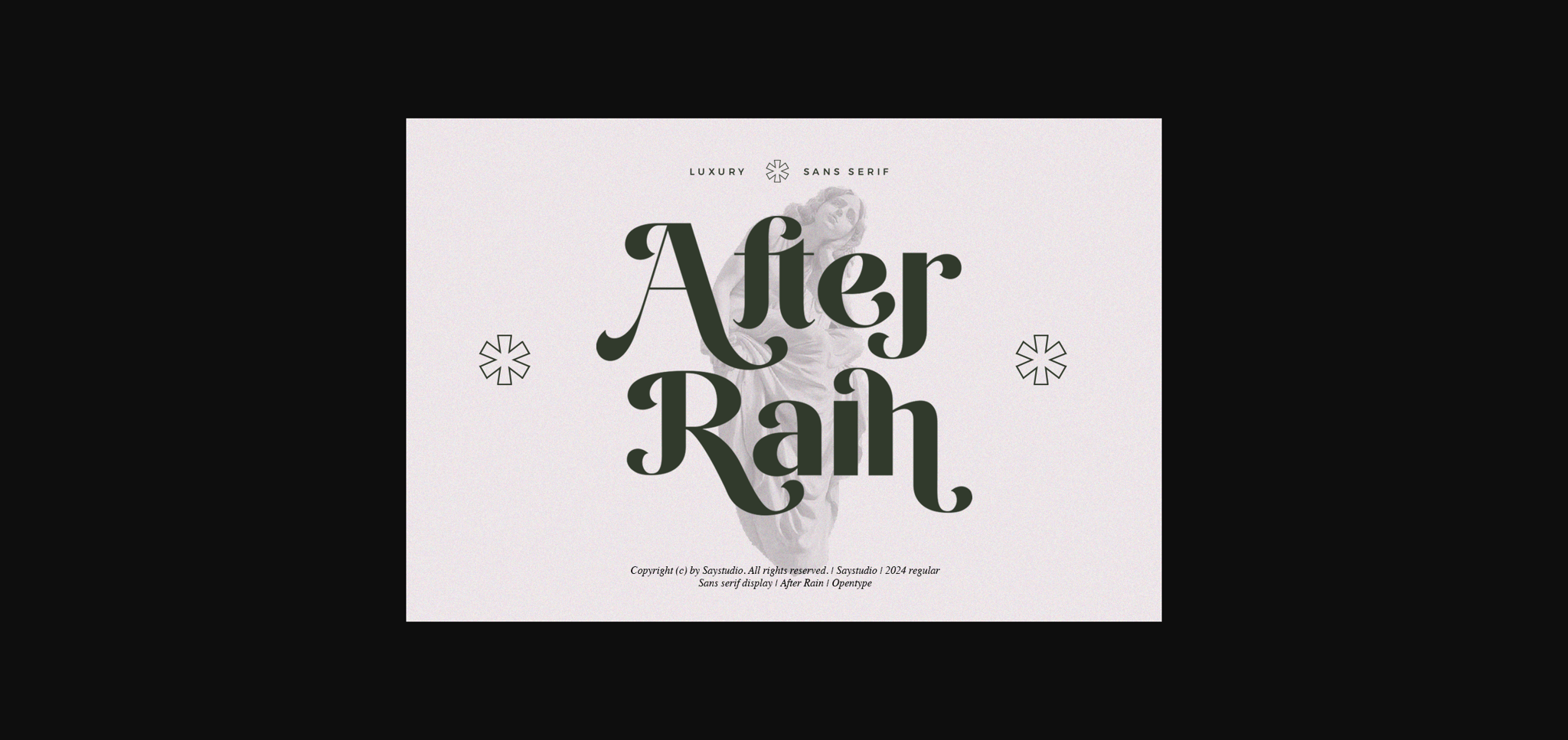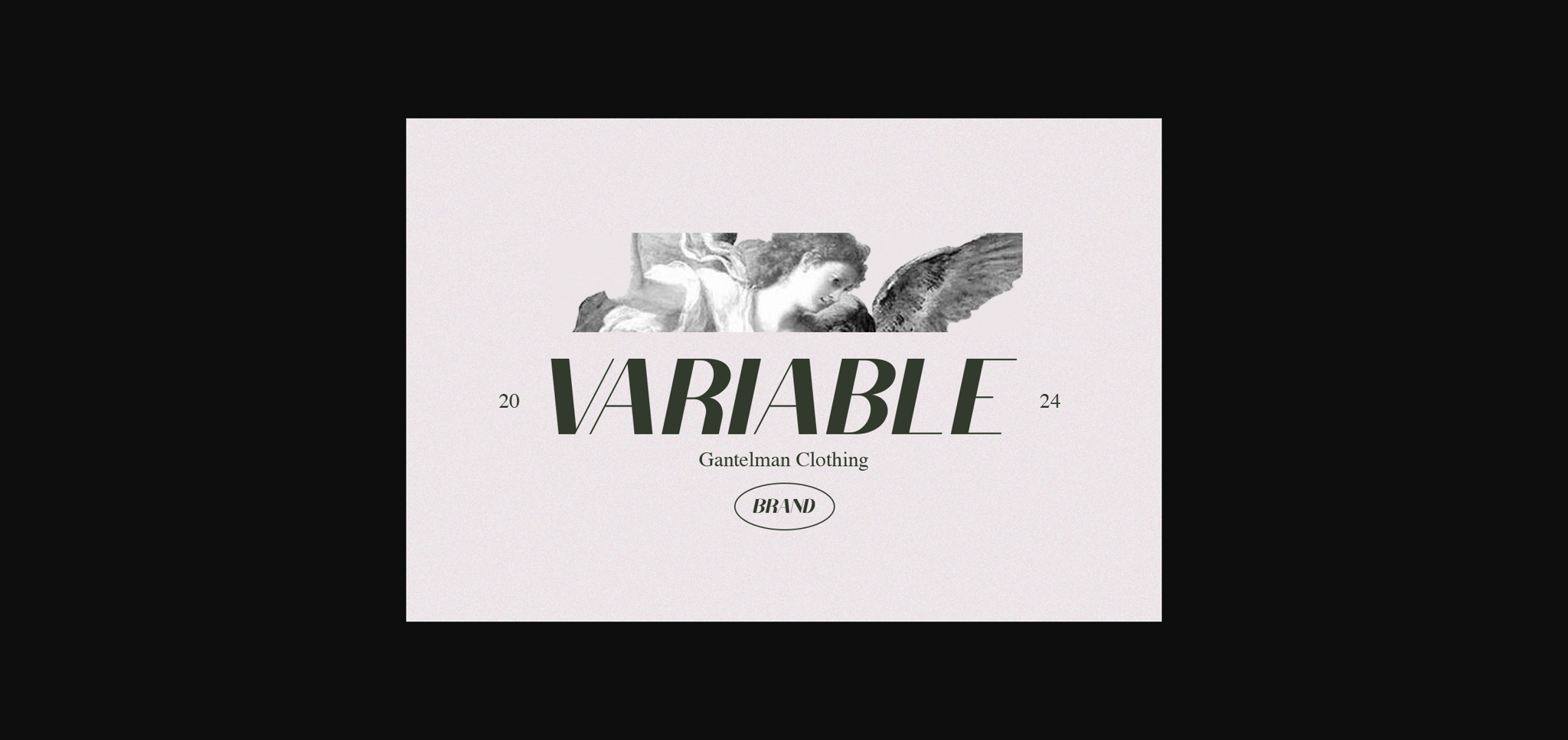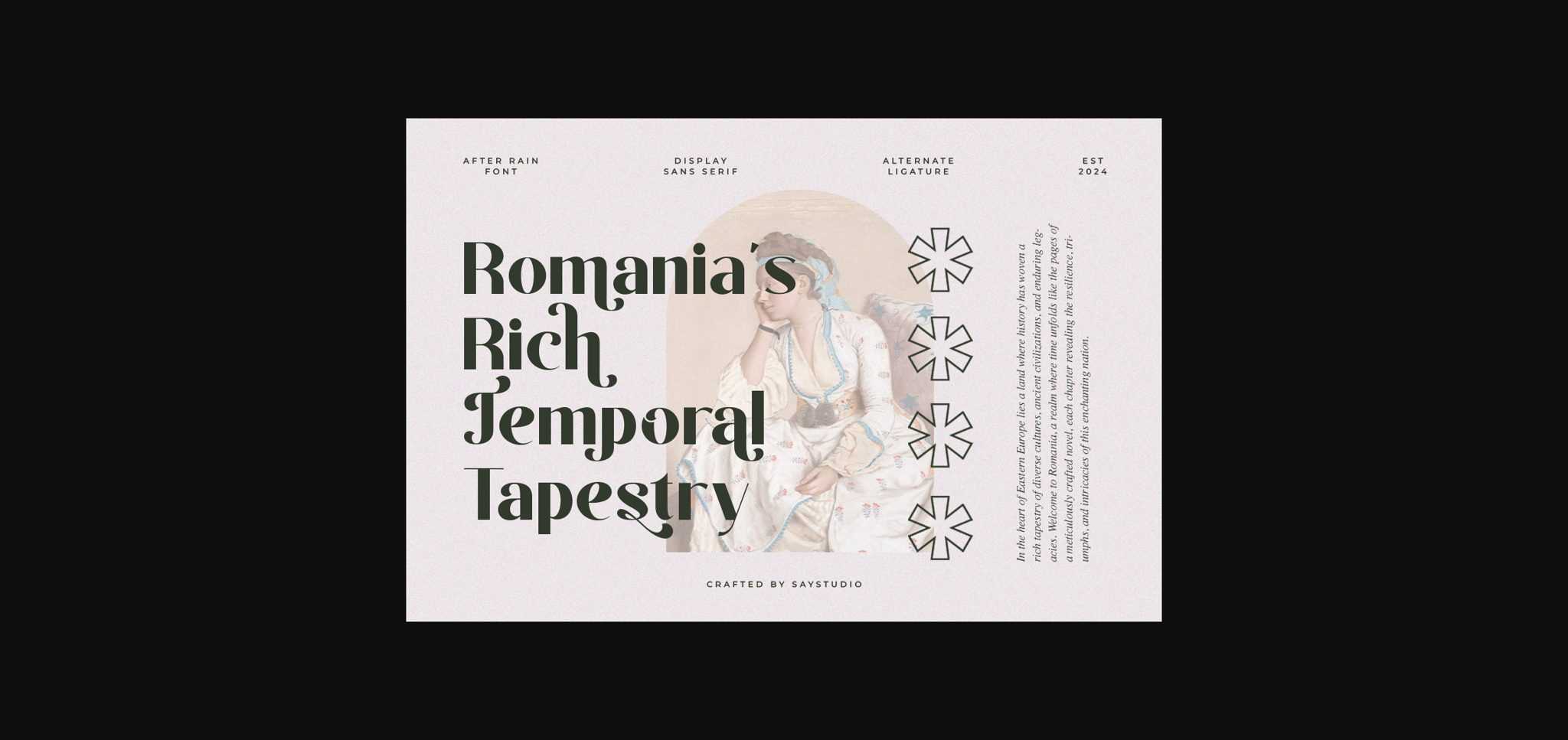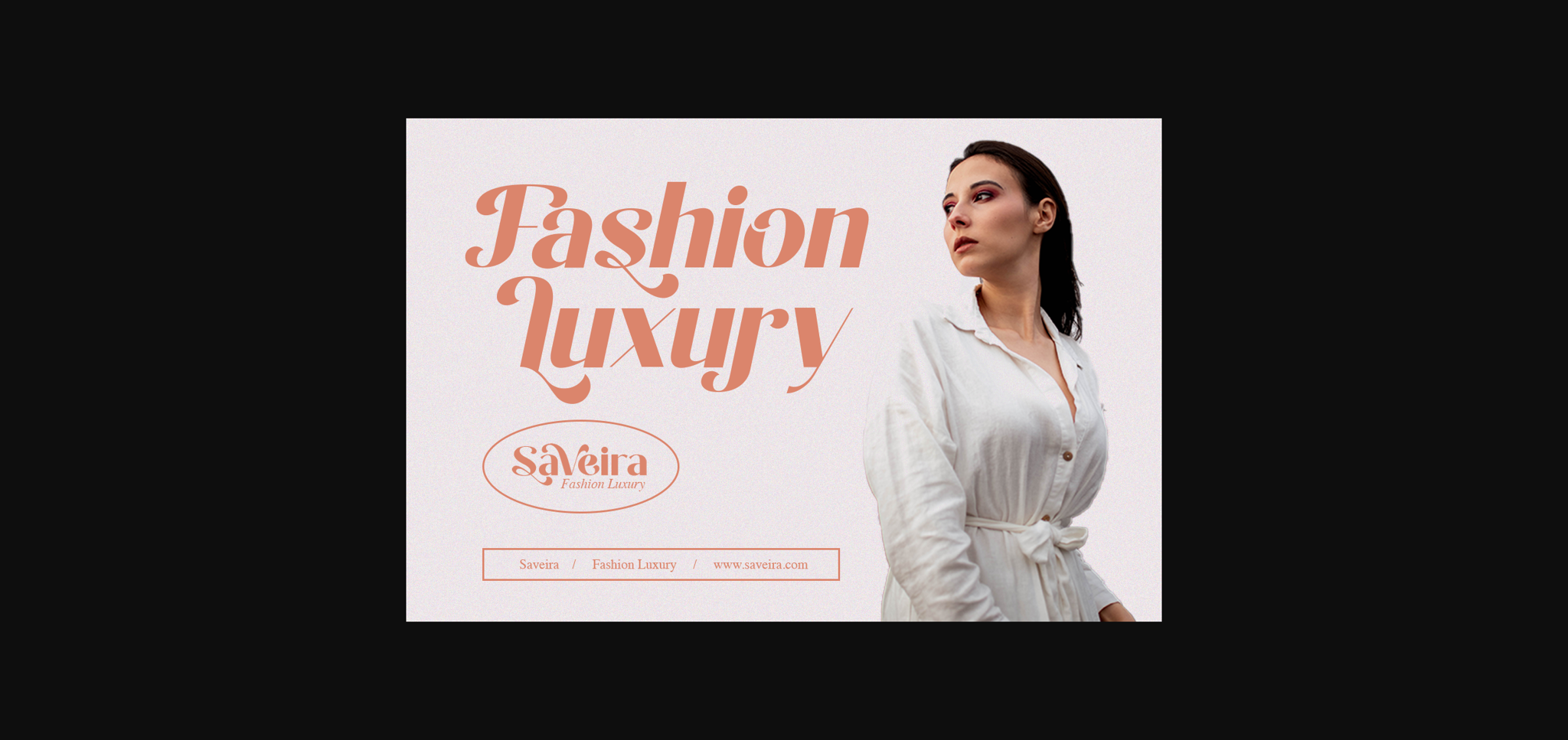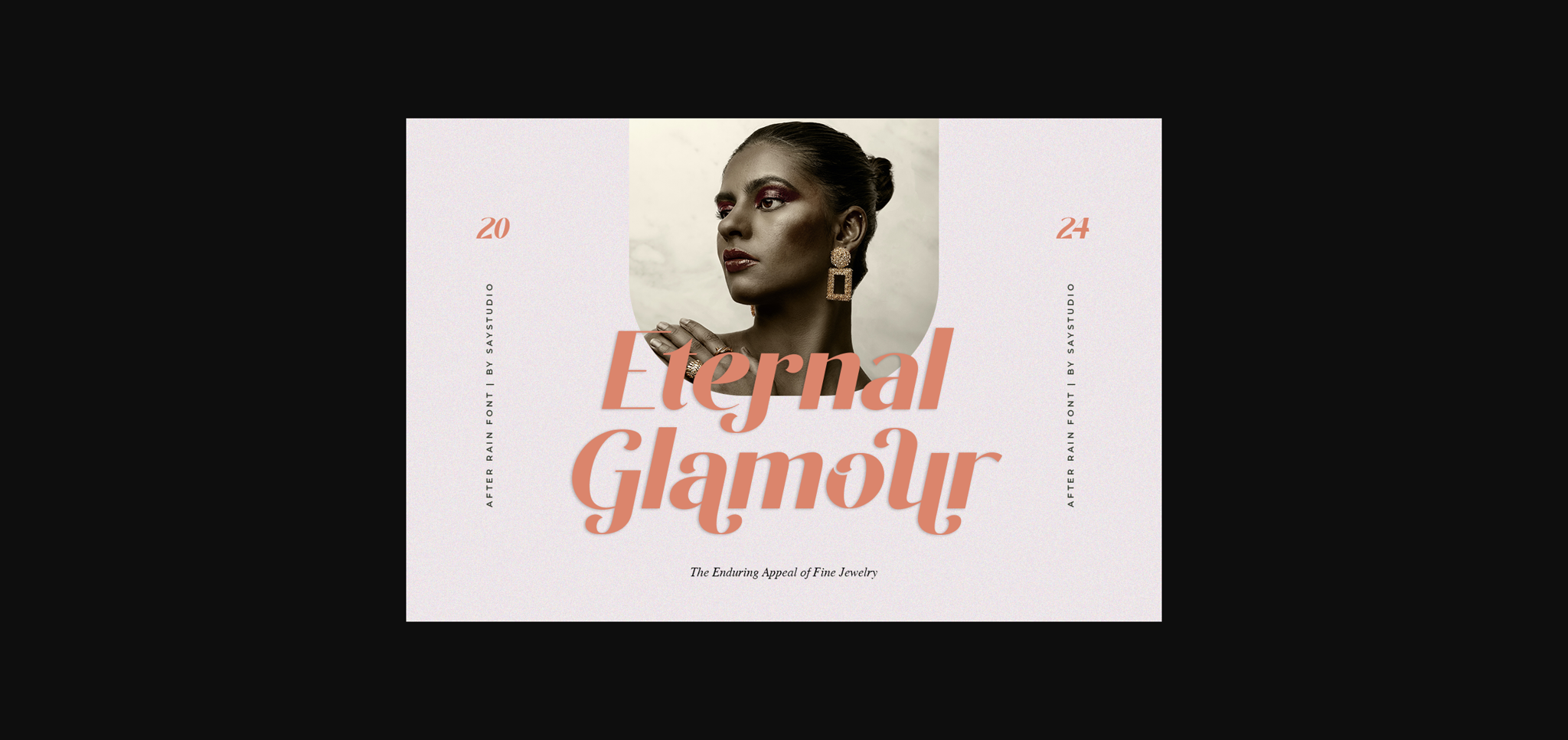
About After Rain Font
After Rain is a contemporary sans-serif font radiating sophistication and style. Its sleek lines and balanced proportions exude modernity, making it perfect for a wide range of design projects. From elegant branding to clean editorial layouts, After Rain brings a fresh and fashionable touch to any typographic composition.